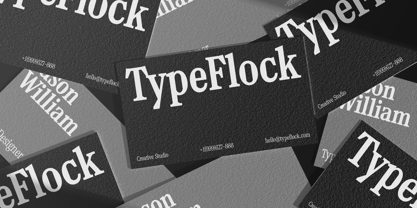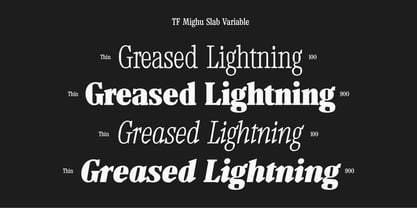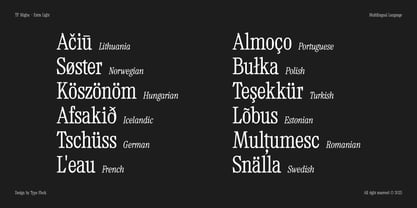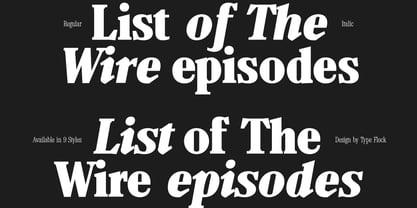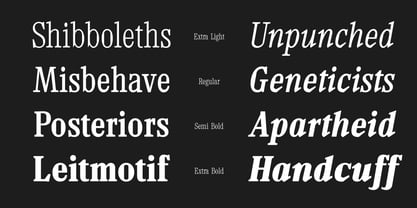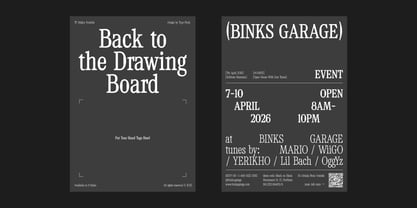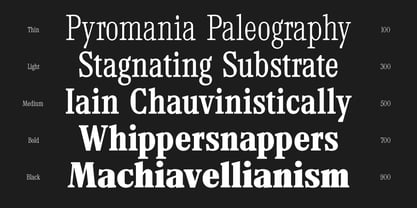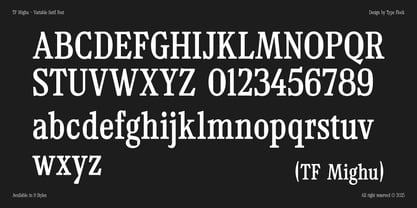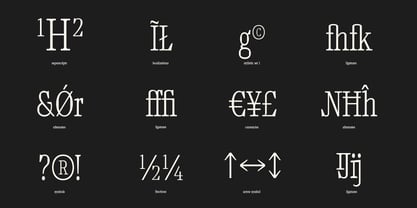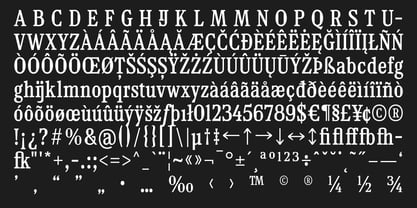
TF Mighu Slab Variable
von TypeFlock
Die Schriftfamilie TF Mighu Slab Variable wurde von Faisal Tanjung entworfen und von TypeFlock veröffentlicht. TF Mighu Slab Variable enthält 18 Stile und Familienpaketoptionen. Mehr über diese Familie
Meet TF Mighu Slab Variable, a powerful slab serif typeface where strength, clarity, and contemporary expression come together. Designed to feel confident yet approachable, Mighu Slab balances bold construction with refined details, delivering a voice that is both assertive and versatile. Its solid slab serifs and carefully tuned proportions create a strong visual rhythm, making it ideal for designers who want impact without sacrificing readability. At its core, TF Mighu Slab Variable is built as a modern workhorse. Rooted in classic slab serif traditions but engineered for today’s digital environments, it embraces flexibility through its variable font system. Each character is crafted with intention wide shoulders, stable stems, and confident terminals resulting in a typeface that feels grounded, reliable, and unmistakably contemporary. Whether used at large display sizes or in dense editorial layouts, Mighu Slab maintains clarity and presence with ease. TF Mighu Slab Variable excels across branding, editorial design, packaging, and UI applications. It’s especially well-suited for bold headlines, expressive identities, posters, and layouts that demand visual authority. Thanks to its variable capabilities, designers can seamlessly shift tone from strong and commanding to calm and minimal within a single typographic system. Where structure meets flexibility, Mighu Slab finds its strength. Key Features: Variable Slab Serif Typeface Multiple Weights & Italic Styles Strong, Confident Slab Construction Optimized for Display and Editorial Use Balanced Proportions for High Readability Give your designs a foundation that feels solid, modern, and expressive. Discover the strength and versatility of TF Mighu Slab Variable.
Designer: Faisal Tanjung
Foundry: TypeFlock